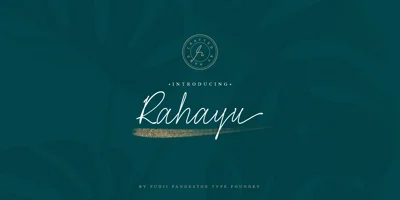
Rahayu Font
Rahayu Font is ideal for Southeast Asian restaurant branding, Indonesian cultural events, traditional art exhibitions, wellness retreat centers, spiritual healing practices, tropical resort marketing, batik design workshops, Indonesian language materials, cultural heritage festivals, meditation center signage, traditional craft businesses, and peaceful lifestyle brands.
This font is exciting because it embodies the profound sense of peace, prosperity, and spiritual well-being that the beautiful Indonesian word "Rahayu" represents, featuring harmonious letterforms that flow with the same tranquil grace and balanced energy that defines traditional Indonesian philosophy and cultural wisdom. The gentle character design captures both the serene beauty of tropical landscapes and the deep spiritual traditions that emphasize harmony between humanity and nature, creating typography that feels authentically rooted in Indonesian cultural values while radiating universal peace and positive energy. Each letter carries the blessing of safety, prosperity, and spiritual protection that makes "Rahayu" such a cherished expression in Indonesian culture.
The Rahayu Font family includes regular and bold weights with complete character sets featuring culturally-inspired numerals, peaceful punctuation marks, and decorative elements reminiscent of traditional Indonesian art, batik patterns, and spiritual symbols. Advanced versions may offer additional stylistic variants with enhanced flowing effects, alternate characters that reflect traditional Indonesian calligraphy, and ornamental elements that celebrate Indonesian cultural heritage and spiritual traditions.
Whether you're developing Indonesian business branding, creating wellness and spirituality content, or designing cultural celebration materials, Rahayu Font provides the peaceful harmony and cultural authenticity your project needs to honor Indonesian traditions while spreading the universal message of peace and prosperity. This typeface transforms ordinary text into blessed expressions that carry the protective energy and spiritual wisdom of Indonesian cultural heritage. The font's peaceful character makes it perfect for brands and organizations committed to wellness, cultural respect, and spiritual growth. Indonesian culture enthusiasts and wellness practitioners will appreciate how this font brings authentic cultural blessing to their work with its genuinely peaceful and spiritually protective character that honors traditional wisdom.